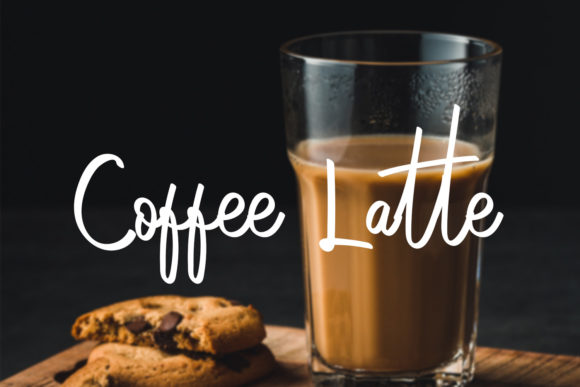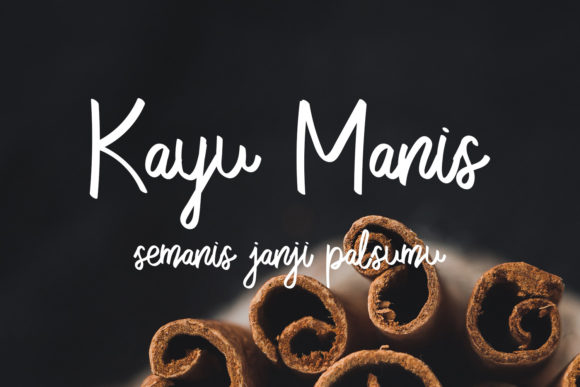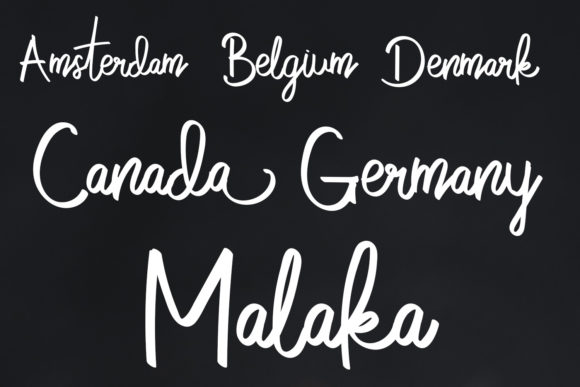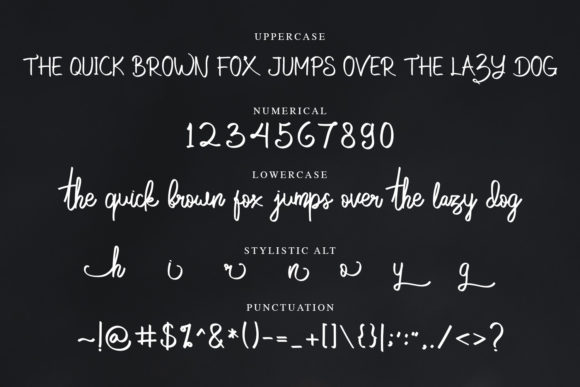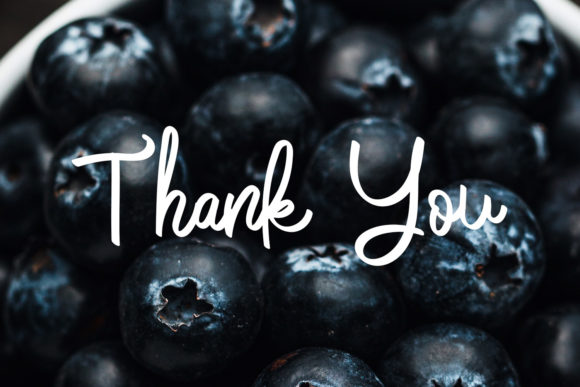
HomeScript FontsCobain Aja Font Script Fonts Cobain Aja Font FacebookXPinterestWhatsApp Cobain Aja Font Poster 2 Cobain Aja Font Poster 3 Cobain Aja Font Poster 4 Cobain Aja Font Poster 5 Cobain Aja Font Poster 6 About Cobain Aja Font Cobain Aja is a dynamic and playful script that’s full of energy. Get inspired by its authentic charm. DOWNLOAD ON CREATIVE FABRICAThis font is sold and delivered by Creative Fabrica. Font Canyon may earn a commission if you buy through this link. People also explored Lalisa Font Rosty Font Arkqunie Extra Black Font Snow White Font Workspace Font Romalian Font My Sweet Font Nostalgia Font Vintage Christmas Font 305 0 TagsCobain Aja Font Previous articleHowells FontNext articleVonday Font LEAVE A REPLY Cancel reply Comment: Please enter your comment! Name:* Please enter your name here Email:* You have entered an incorrect email address! Please enter your email address here Website: Save my name, email, and website in this browser for the next time I comment. Personal Use Free Shelly Personal Use Free Read more about this font Loopina Personal Use Free Read more about this font Mika Personal Use Free Read more about this font Doodle Font Personal Use Free Read more about this font BLOG Top 10 Handwritten Fonts That Elevate Your Designs Top 10 Handwritten Fonts That Will Elevate Your Designs Handwritten fonts bring a warm, personal touch to every creative project. Whether you're designing logos, invitations,... How to Cut Any Font on Cricut: Convert a Font to SVG (Free) Using Fonts in Digital Marketing: Tips to Strengthen Your Brand Identity Elegant Wedding Invitation Fonts – Handwritten & Script Fonts